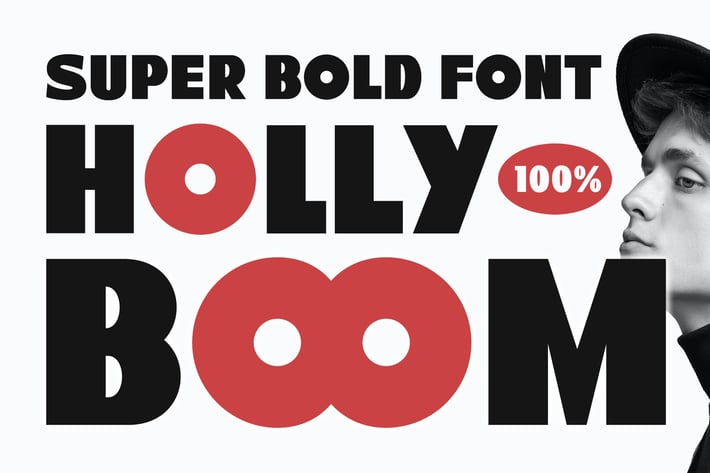
Holly Boom Advertisement Font
Holly Boom is super bold font with 2 styles : Clean and grunge effect inside its characters. This FOnt is awesome font. Very perfect for many project: fashion, magazines, logo, branding, quotes, blog header, poster, advertisements, postcard, book, websites, etc.